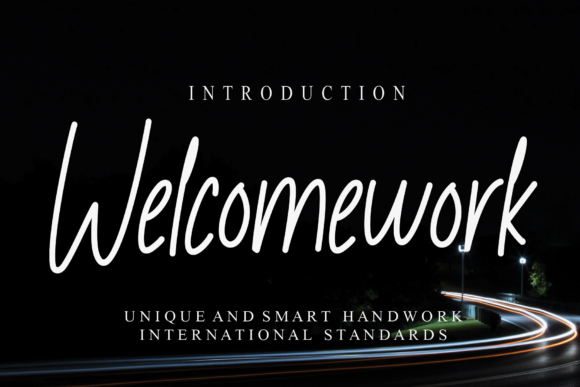
Welcome to the realm of visual enchantment, where Welcomework Font reigns supreme. This exquisite script font, a creation of the renowned Misterletter.co, is a masterpiece of elegance, delicacy, and sophistication. Welcomework Font belongs to the coveted script font family, a group of fonts known for their flowing, graceful strokes and timeless beauty.
With its distinctive cursive style, Welcomework Font exudes a charm that is both elegant and refreshing. Its meticulously crafted curves and swashes dance across the canvas, creating a visual symphony that captivates the senses. Whether you are a seasoned designer or just starting your creative journey, Welcomework Font is the perfect tool to elevate your designs to new heights of aestheticism.
Immerse yourself in the world of Welcomework Font, where each letter is a work of art and every word a masterpiece. Its versatility knows no bounds, making it the ideal choice for a wide range of design projects. From wedding invitations that whisper romance to branding materials that exude professionalism, this font adds a touch of elegance to every creation.
Welcomework Font is the embodiment of timeless beauty. Its classic style transcends trends, ensuring that your designs will remain captivating for years to come. Whether you are crafting logos, brochures, posters, or social media graphics, this font will add an aura of sophistication and charm that sets your work apart from the ordinary.
Join the growing number of designers who have discovered the magic of Welcomework Font. Experience the joy of creating designs that captivate and inspire, designs that leave a lasting impression on your audience. Let your creativity soar and let Welcomework Font be your guide to design excellence. Embrace the beauty, embrace the elegance, and embrace the power of Welcomework Font today.